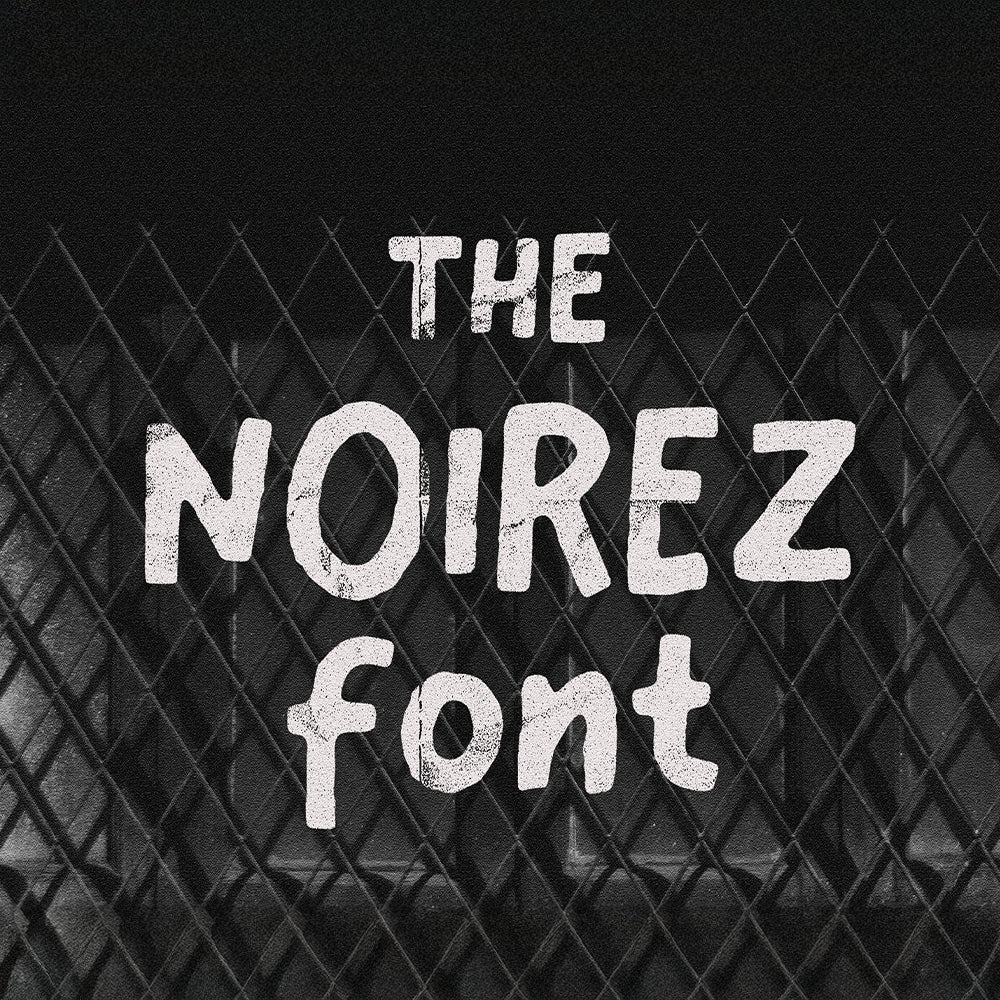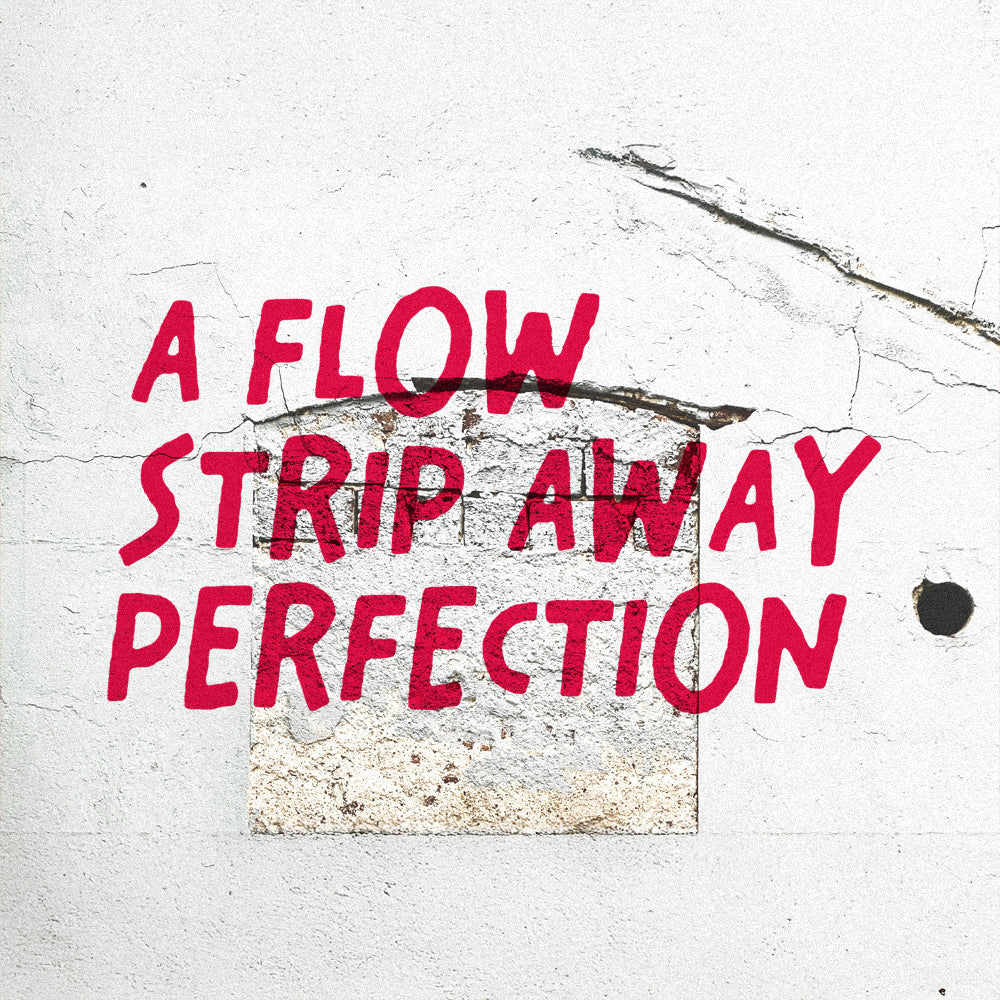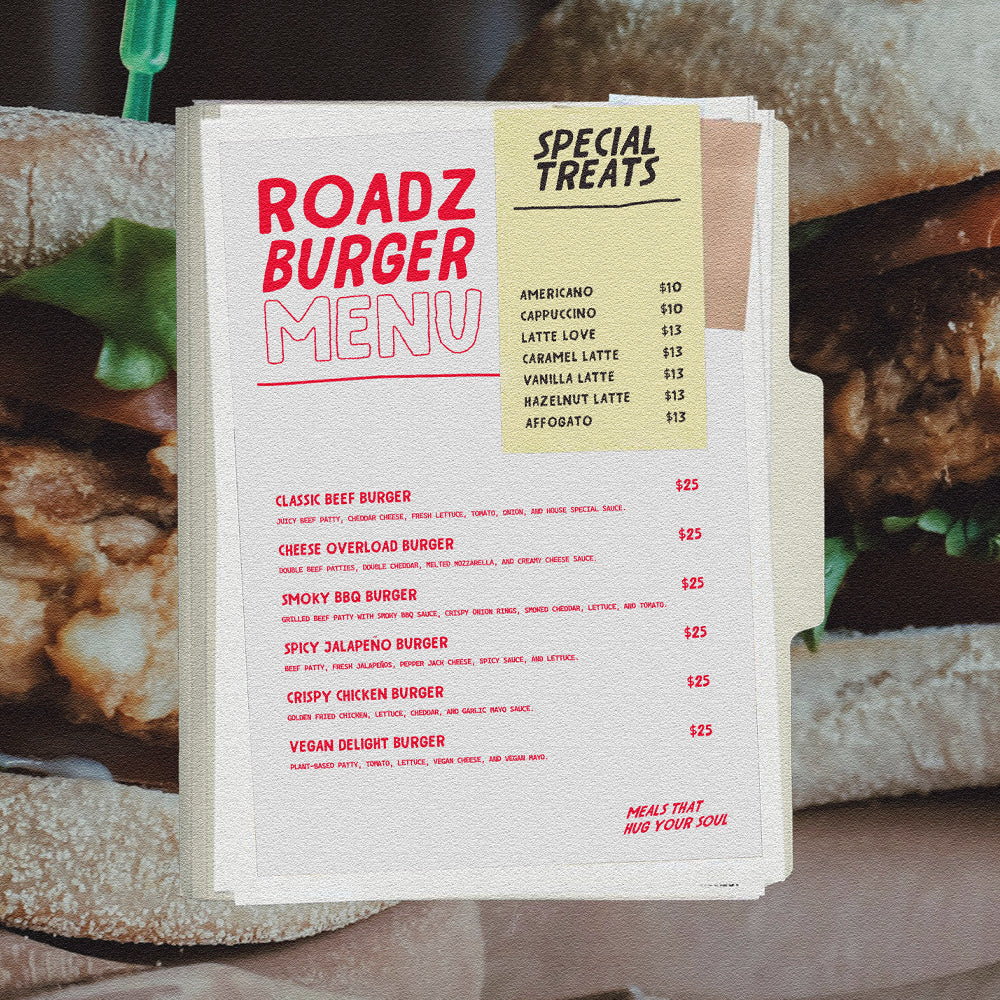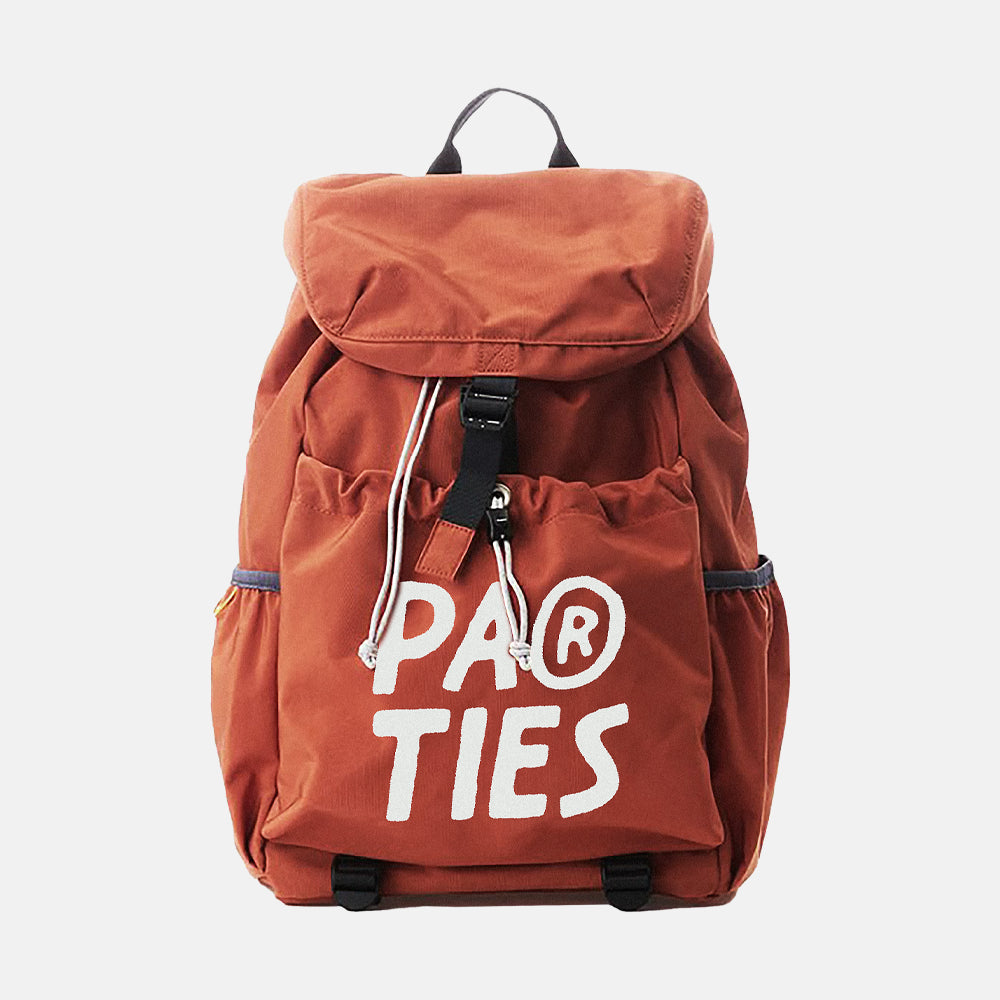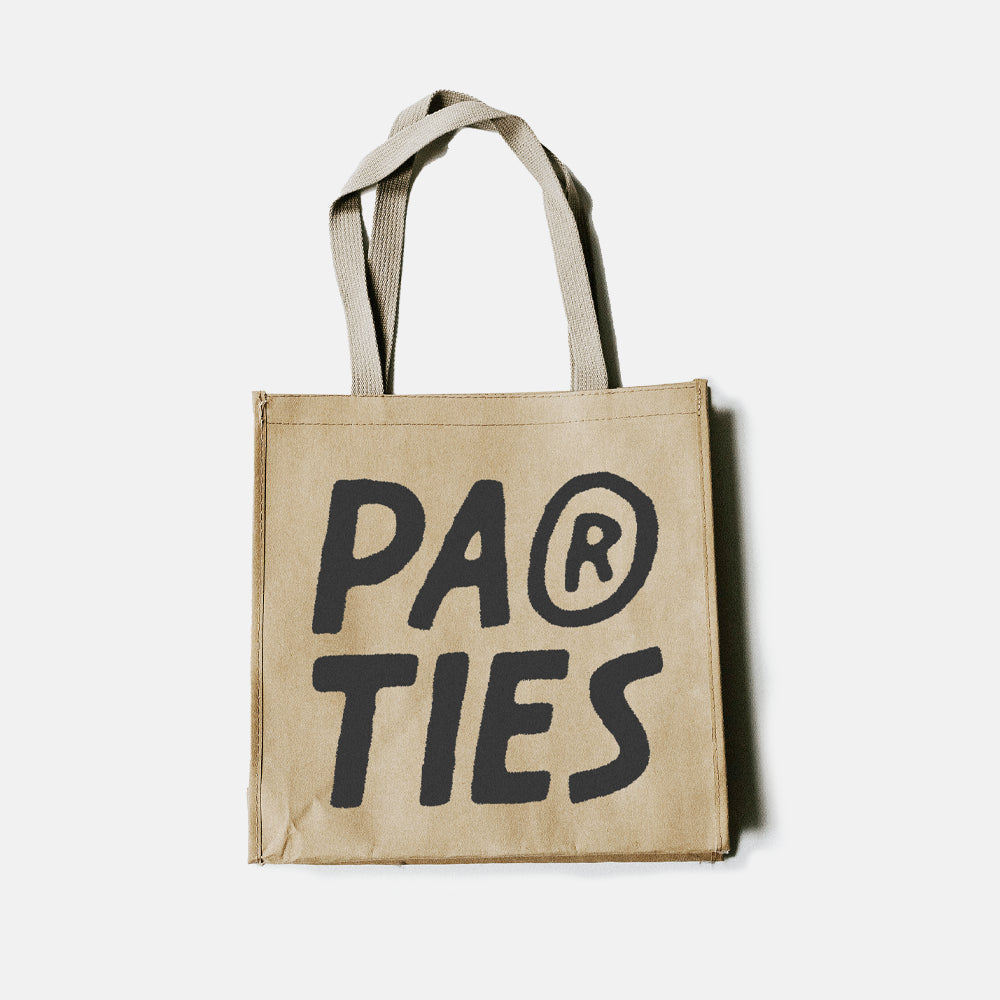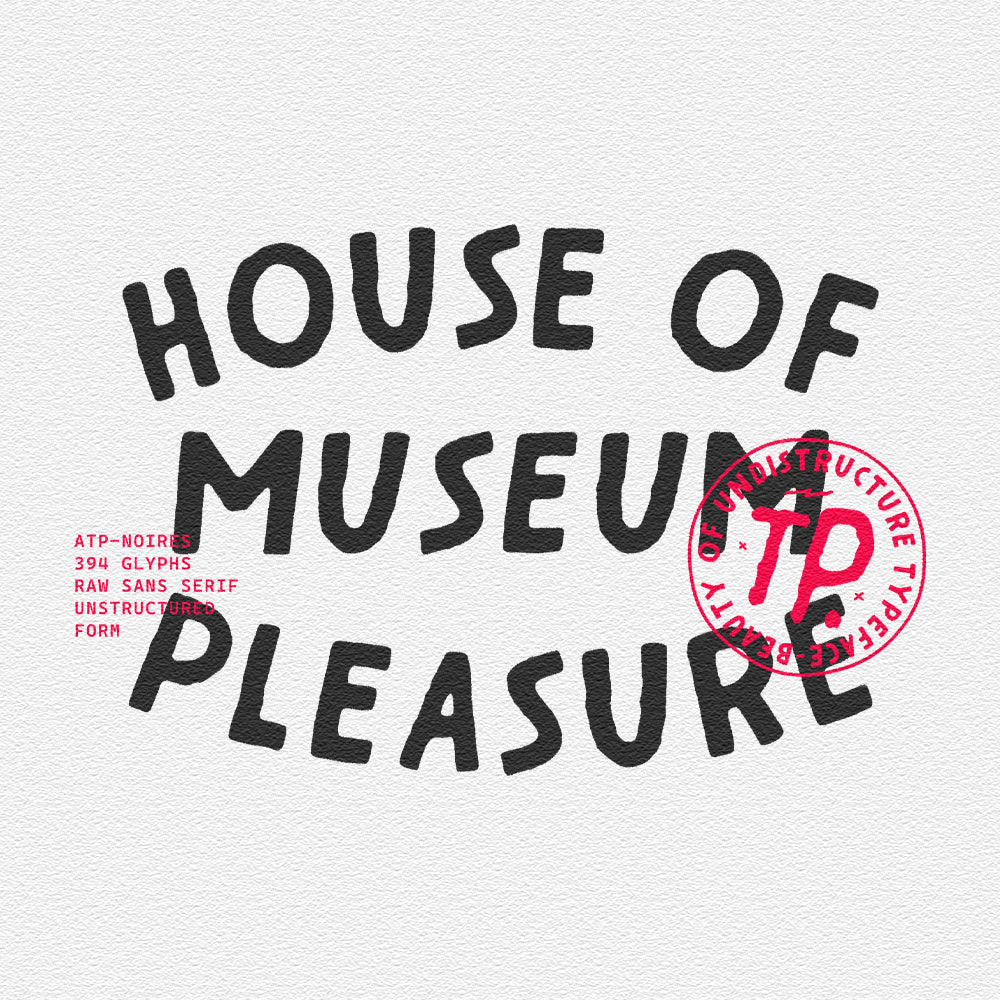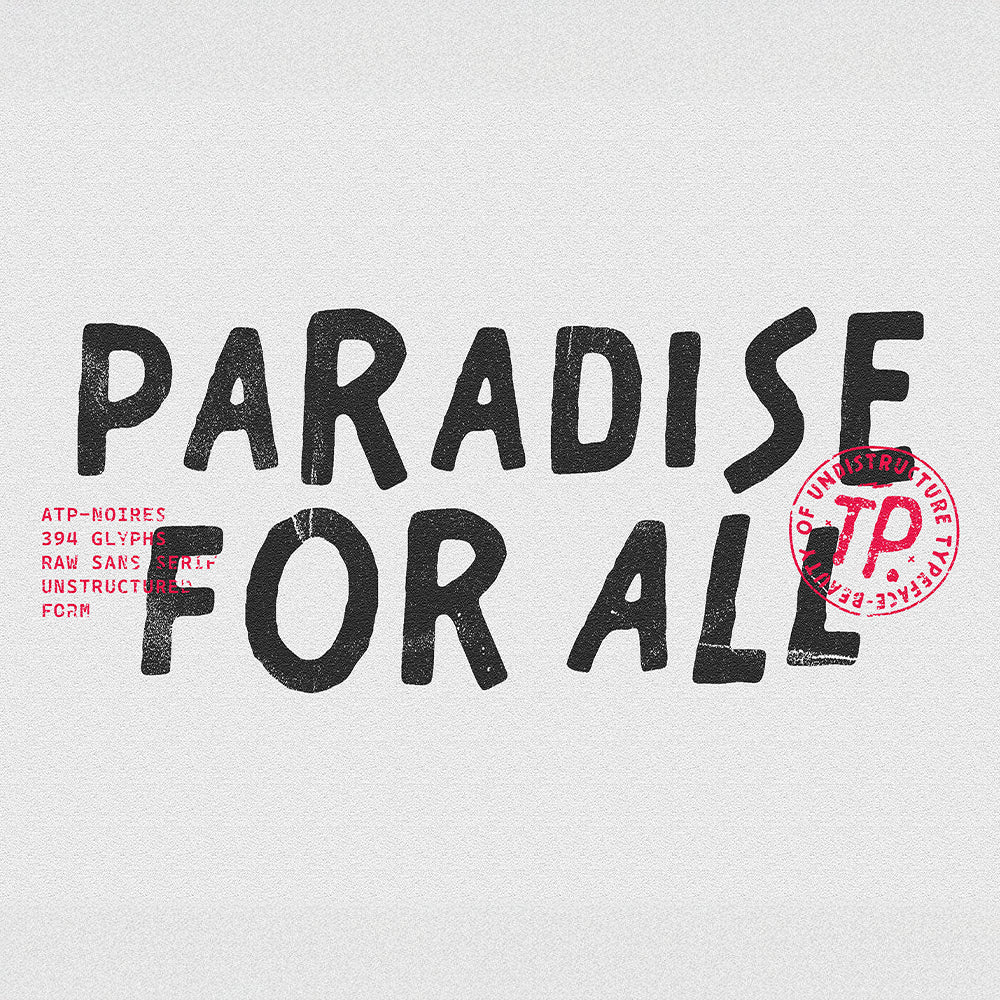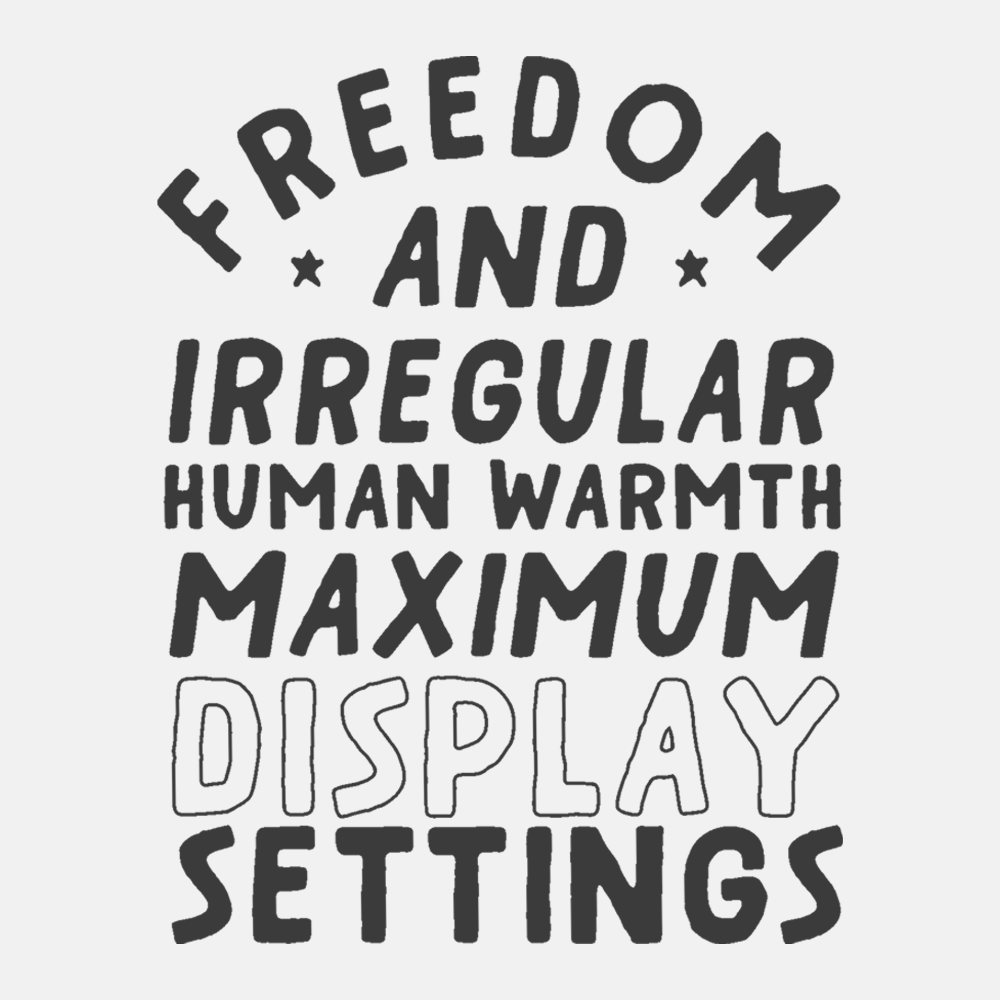
Noirez - Vintage Sans Serif Font
Noirez is a bold vintage sans serif font featuring hand-drawn strokes that provide a rough, unpolished appearance. This typeface combines a casual yet confident style, making it suitable for various design projects.